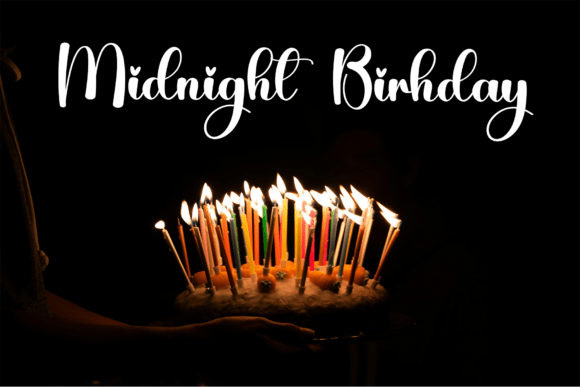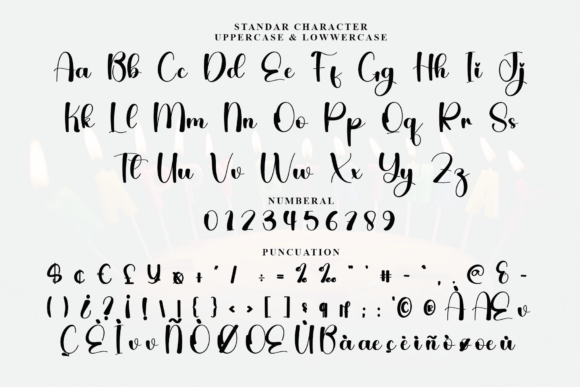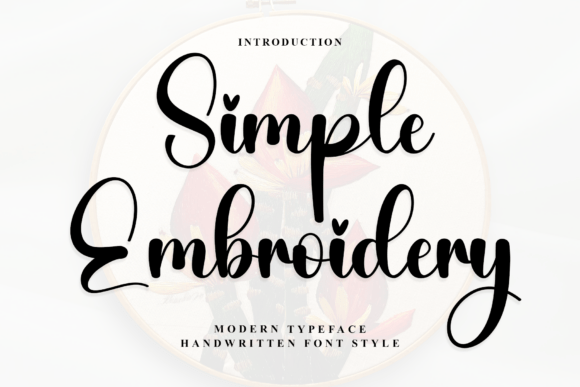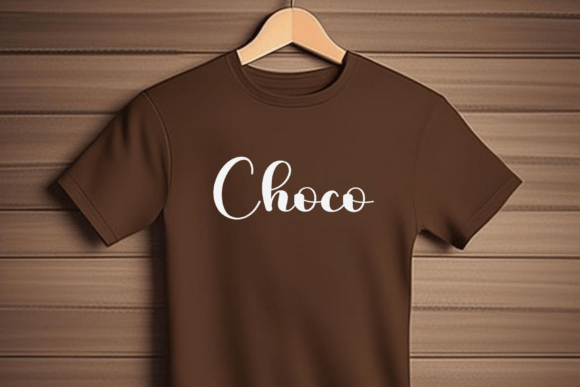
Simple Embroidery Font
About the Simple Embroidery Font
The Simple Embroidery Font is here to transform your projects with its distinctive character and style. Simple Embroidery is a delicate handwritten font carefully crafted for a cool and unique design. This font can be used to write letters, invitations, food products, titles, and more.